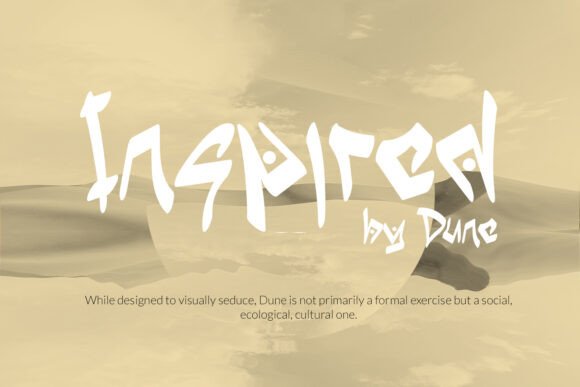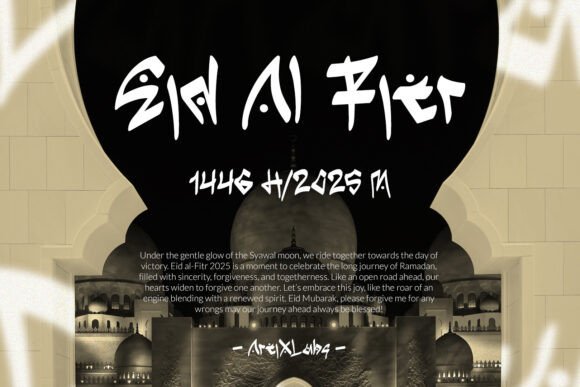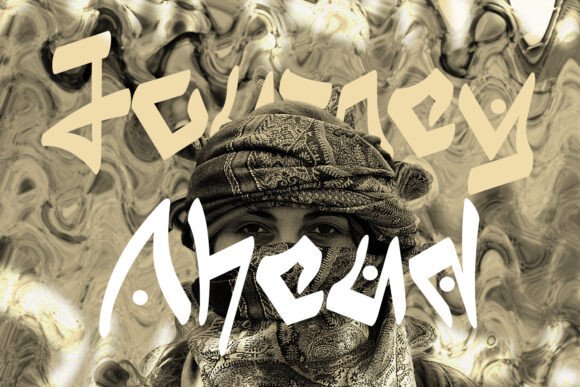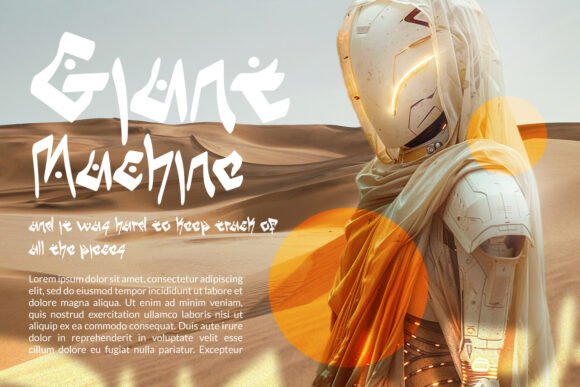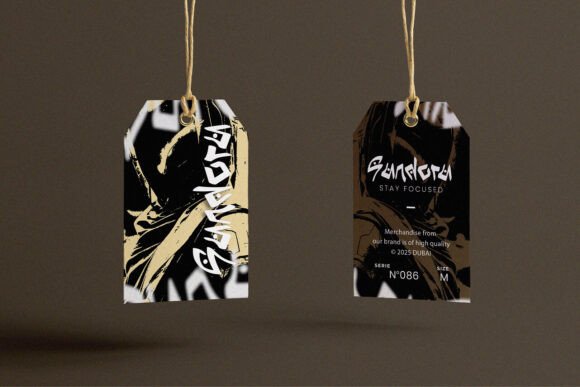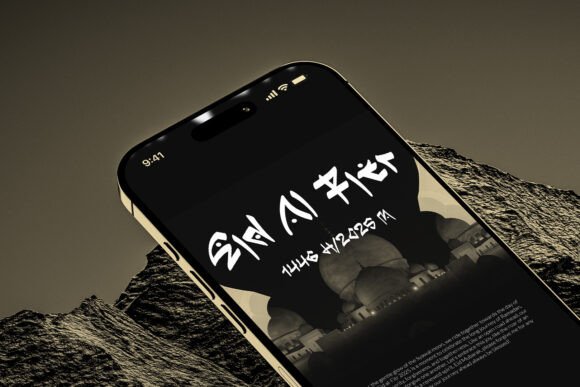
Introduction to Dunara Font
Dunarta is a bold and expressive typeface that fuses modern graffiti style with Arabian-inspired lettering.
With its fluid strokes, sharp edges, and urban energy, this font is perfect for street art designs, hip-hop branding, Middle Eastern-themed projects, event posters, and unique logos Whether youโre aiming for a contemporary cultural aesthetic or an edgy artistic vibe, Dunarta adds a distinct and dynamic touch.
Key Features of Dunara Font
Why Choose Dunara Font?
Dunara Font offers exceptional quality and versatility, making it a valuable addition to your design toolkit. Whether you’re creating for personal projects or commercial use, Dunara Font delivers professional results.